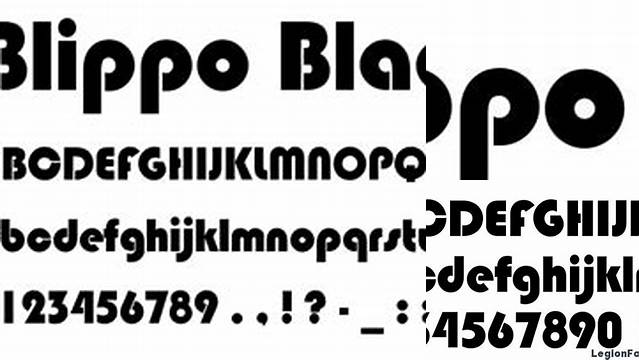
Unveiling the Blippo BT Black Font: A Deep Dive
Hey guys! Today, we're diving headfirst into the awesome world of typography, and our main star is the Blippo BT Black font. If you're a designer, a hobbyist, or just someone who appreciates cool-looking text, you've probably come across this distinctive typeface. Blippo BT Black isn't just any font; it's a statement. Its chunky, rounded letterforms exude a playful yet bold personality, making it a go-to choice for projects that need to grab attention and convey a sense of fun and energy. We're going to explore everything about this font, from where you can snag a free download to how you can best utilize its unique characteristics to make your designs pop. Get ready to explore the versatility and visual impact of Blippo BT Black, a font that truly stands out in a crowded digital landscape. Understanding the nuances of a font like Blippo BT Black is crucial for any visual communication. It’s not just about picking something that looks good; it’s about selecting a typeface that aligns with the message and tone you want to convey. The Blippo BT Black font, with its inherently cheerful and robust design, is perfect for everything from children's books and party invitations to vibrant marketing materials and eye-catching headlines. Its accessibility as a free download further amplifies its appeal, democratizing good design and allowing creatives of all levels to experiment and produce professional-looking results. We'll break down its history, its design principles, and offer practical tips on integrating it seamlessly into your workflow. So, buckle up, designers, and let's get this typography party started!
The Allure of Blippo BT Black Font: Why It's a Designer's Favorite
What makes the Blippo BT Black font so captivating? It’s the sheer personality packed into each character. Think of those iconic bubble letters you loved as a kid, but with a sophisticated, modern twist. The thick strokes and rounded terminals give it a friendly, approachable vibe, while the consistent weight ensures readability, even at smaller sizes. This balance is key to its widespread appeal. Designers love Blippo BT Black because it instantly injects a sense of playfulness and dynamism into any design. Whether you're crafting a poster for a summer music festival, designing a logo for a quirky new brand, or creating social media graphics that need to stop the scroll, Blippo BT Black delivers. Its boldness commands attention without being aggressive, and its rounded edges soften the impact, making it feel welcoming and fun. It’s the kind of font that makes you smile when you see it. Furthermore, its distinctiveness means your work won't blend into the background. In a sea of generic sans-serifs, Blippo BT Black offers a refreshing departure, signaling creativity and a willingness to embrace bold choices. This article will delve into the specific design elements that contribute to its charm and explore various scenarios where this font truly shines, helping you understand why it remains a beloved choice for so many creative projects. We'll uncover the design philosophy behind its creation and discuss how its robust structure supports legibility across different applications, from print to digital screens. Get ready to appreciate the artistry behind this popular typeface.
Mastering Blippo BT Black Font: Design Tips and Best Practices
Now that you've got the Blippo BT Black font installed, how do you use it like a pro? This font, with its bold and playful character, thrives in specific contexts. Firstly, don't be afraid to let it be the star of the show. Blippo BT Black is fantastic for headlines, titles, and short bursts of text where you want maximum impact. Think event posters, catchy slogans, or call-to-action buttons on a website. Its thickness makes it incredibly readable from a distance, perfect for grabbing immediate attention. However, avoid using it for long paragraphs of body text, guys. While it's legible, its inherent boldness and distinctive style can become overwhelming and fatiguing for the reader over extended periods. Instead, pair Blippo BT Black with a more neutral, clean sans-serif or serif font for your body copy. This contrast creates a visually pleasing hierarchy and ensures readability. For instance, pair it with Open Sans, Lato, or even a classic like Times New Roman for a really interesting juxtaposition. Consider the context: Blippo BT Black shines in informal, fun, and energetic designs. It’s ideal for children's materials, party invitations, greeting cards, branding for creative businesses, or any project aiming for a friendly and approachable feel. When using it for logos, ensure the design is scaled appropriately to maintain legibility. Experiment with colors – bright, bold colors often complement its cheerful nature, but don't shy away from using it in monochrome for a strong graphic statement. Remember, the key is contrast and context. Use its boldness strategically, and pair it with complementary fonts to create a balanced and effective design. We'll explore some specific application examples next, showing you how versatile this font can truly be.
Blippo BT Black Font in Action: Creative Application Ideas
Let's get inspired! Where can the Blippo BT Black font truly shine? Its unique personality lends itself to a surprising variety of creative applications. For starters, think event promotions. Hosting a birthday party, a school fair, or a community fun day? Blippo BT Black in a vibrant color makes for eye-catching flyers and posters that scream excitement. Imagine it splashed across a poster for a 'Summer Splash' pool party – pure fun! In the realm of branding, it's perfect for businesses targeting a younger demographic or those wanting to project a quirky, friendly image. Consider a craft store, a toy shop, a bakery, or even a creative agency that wants to break away from stuffy corporate looks. A logo using Blippo BT Black can be incredibly memorable and inviting. For digital content, it’s a winner for social media graphics. Need a catchy headline for an Instagram post or a bold title for a YouTube thumbnail? Blippo BT Black grabs attention instantly. It’s also great for website headlines, banners, and call-to-action buttons where you need text to pop. Think about educational materials for kids – flashcards, worksheets, or storybooks would benefit immensely from its playful readability. It adds a touch of fun to learning, making it more engaging for young minds. Even for personal projects, like designing custom t-shirts, creating greeting cards, or personalizing invitations, Blippo BT Black adds that special, handcrafted feel, despite being a digital font. Remember those old-school cartoon titles? Blippo BT Black evokes that nostalgic yet fresh vibe. The key is to leverage its inherent boldness and roundness to convey energy, happiness, and approachability. When used thoughtfully, this font can transform a simple design into something truly remarkable and memorable, guys. We'll explore its typographic characteristics further in the next section, highlighting the design elements that make it so effective.
Exploring the Typography of Blippo BT Black: Key Design Elements
What makes the Blippo BT Black font tick? Let's break down its design. At its core, Blippo BT Black is a display sans-serif typeface. The "BT" likely refers to the original foundry or designer, adding a touch of provenance. The "Black" signifies its robust weight – it’s a heavy, bold font designed for impact. The most striking features are its highly rounded terminals and generous x-height. The terminals, where the strokes of letters like 'c', 's', 'e', or 'a' end, are not just rounded; they're almost perfectly circular, giving it that characteristic bubbly, friendly appearance. This smoothness contributes significantly to its playful feel. The generous x-height means the height of lowercase letters (like 'x', 'a', 'c') is large relative to the font’s overall size. This enhances legibility, especially in display applications, ensuring that even short words or phrases stand out clearly. Another notable aspect is the uniform stroke width. While it's a bold font, the thickness is generally consistent across the letterforms, which maintains a clean, modern look despite its heft. This consistency prevents it from feeling clunky. The letterforms themselves are generally simple and geometric, with curves dominating the structure. Characters like 'O', 'C', and 'S' are almost perfect circles or near-perfect curves, reinforcing the font's rounded personality. Even letters with sharp angles, like 'K' or 'M', often have slightly softened corners, subtly reinforcing the overall rounded theme. This attention to detail in its construction is what elevates Blippo BT Black from a simple novelty font to a versatile design tool. Understanding these elements helps you appreciate its impact and guides you in using it effectively, guys. We’ll touch upon licensing next, a crucial aspect for any font user.
The Versatility of Blippo BT Black: Beyond the Obvious
While the Blippo BT Black font is undeniably bold and playful, its utility extends beyond just party invitations and kids' designs. Its chunky, rounded aesthetic can be surprisingly versatile when applied thoughtfully. Let's explore some less obvious applications. Consider its use in infographics. While infographics often require highly legible text, key data points, titles, or section headers could effectively use Blippo BT Black to add visual interest and highlight important information without sacrificing clarity, especially when paired with simpler body fonts. Its boldness can make statistics or key takeaways pop. In the realm of app design or UI/UX, Blippo BT Black could be used sparingly for specific interactive elements or buttons that need to convey a sense of fun or encouragement, like a